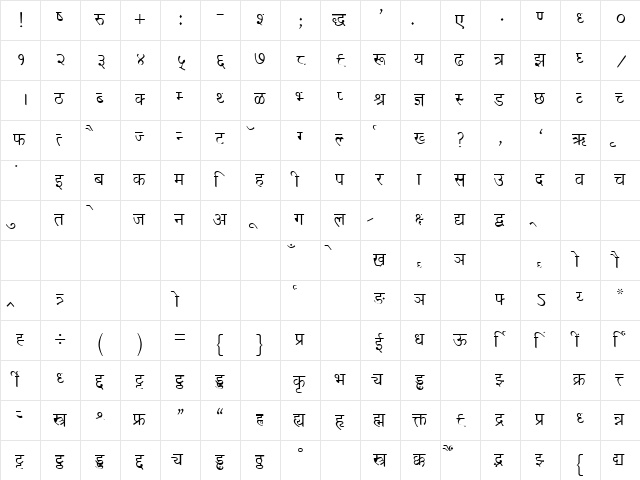
DevLys 020 Normal
Design Context for DevLys 020 Typeface
DevLys 020 takes a measured approach to typography — its balanced proportions and neutral character make it a reliable workhorse for both digital and print work.